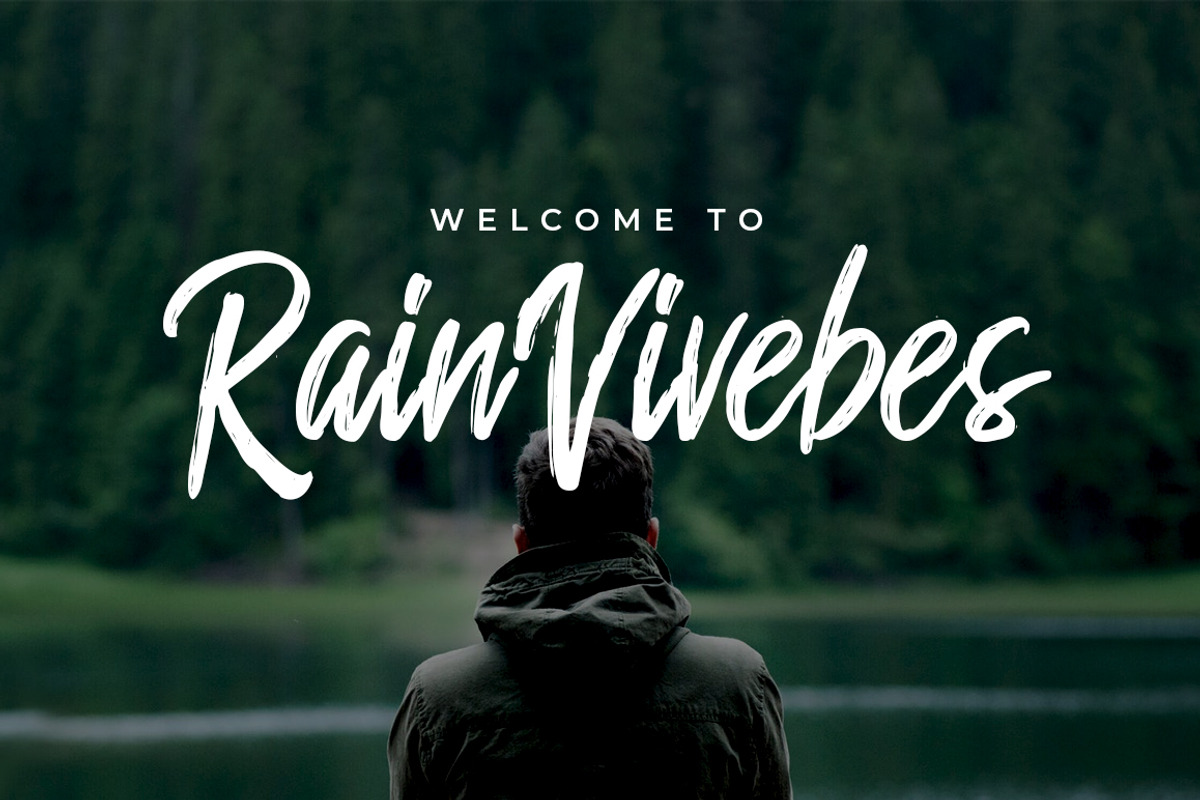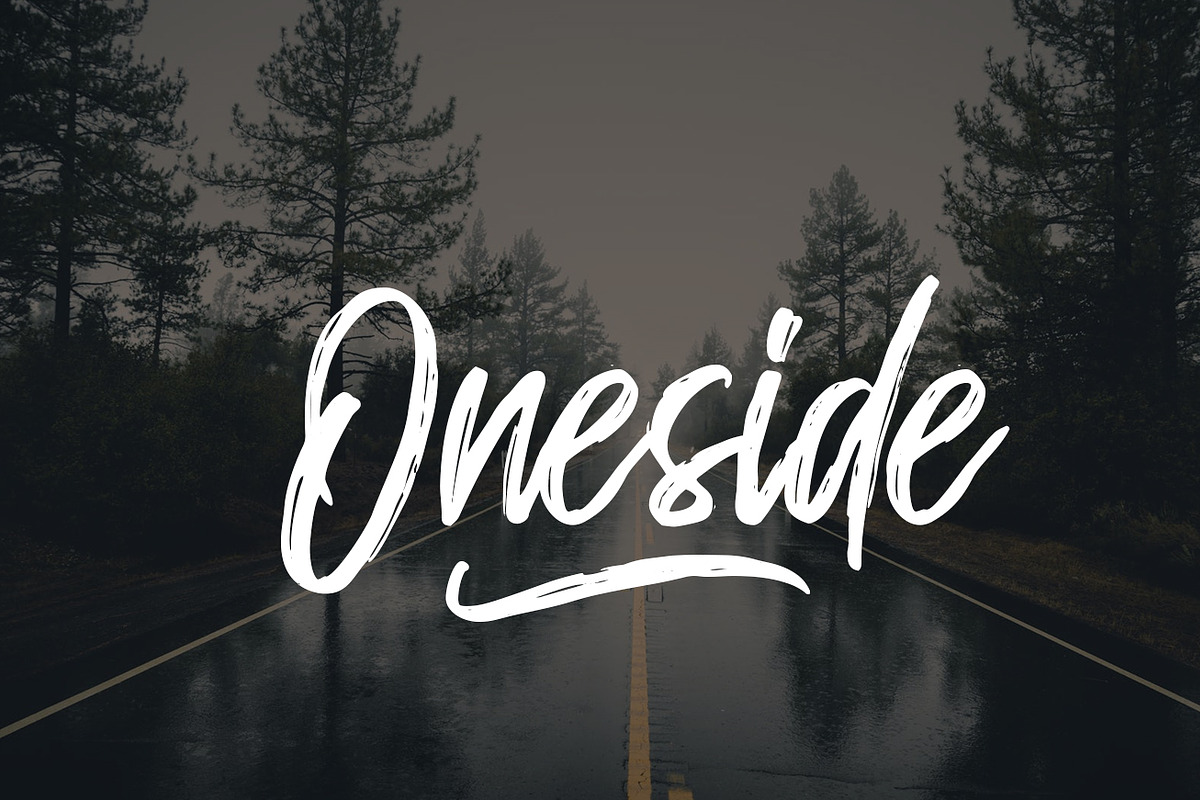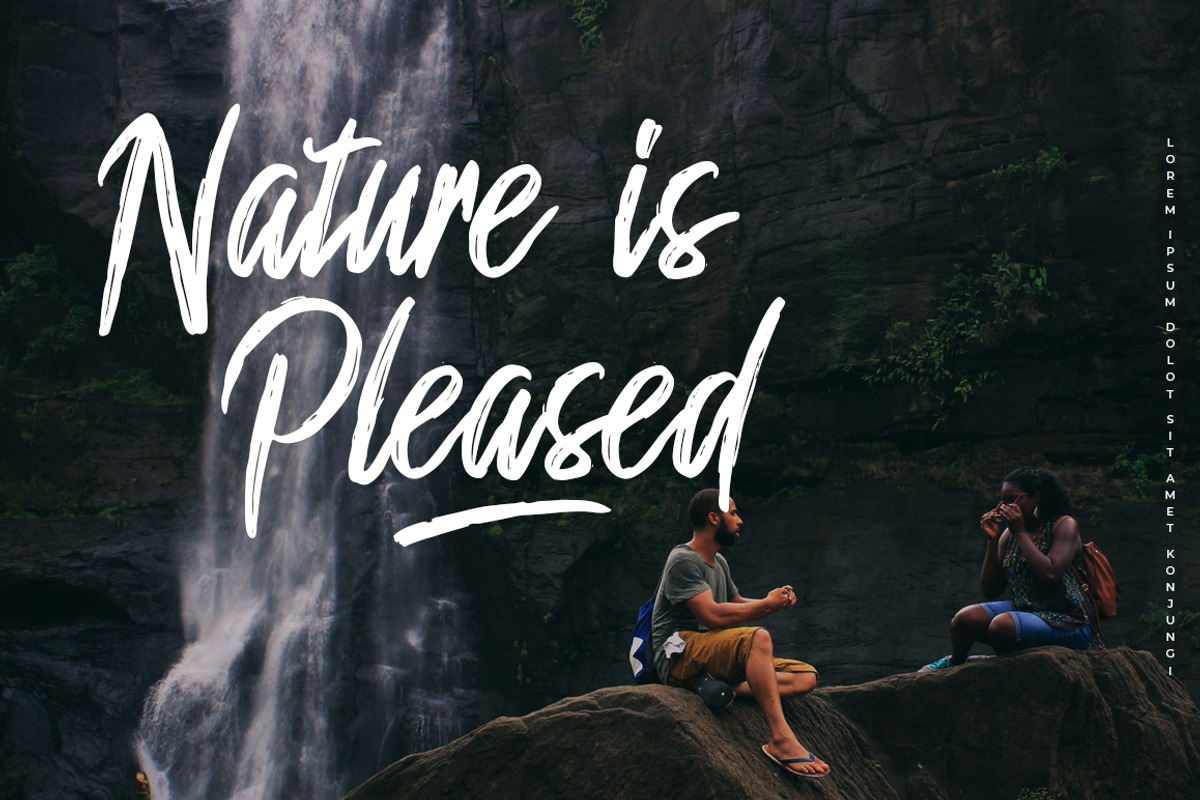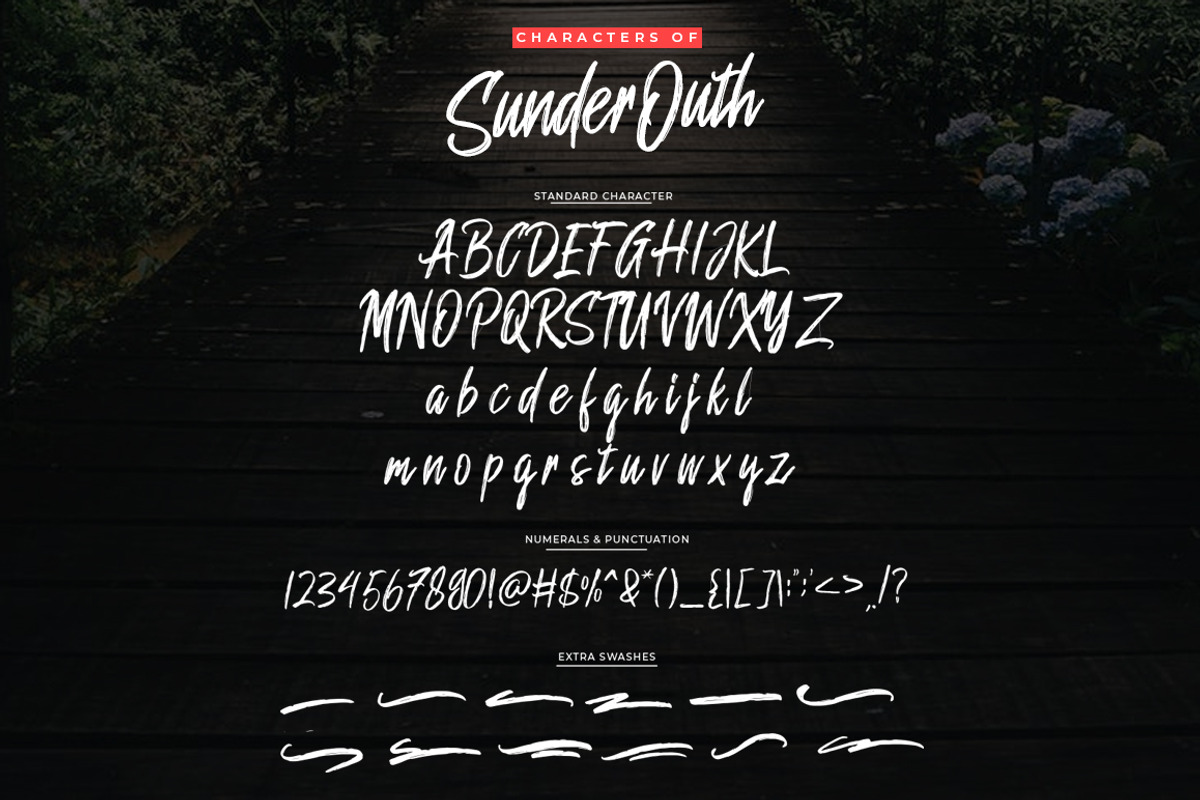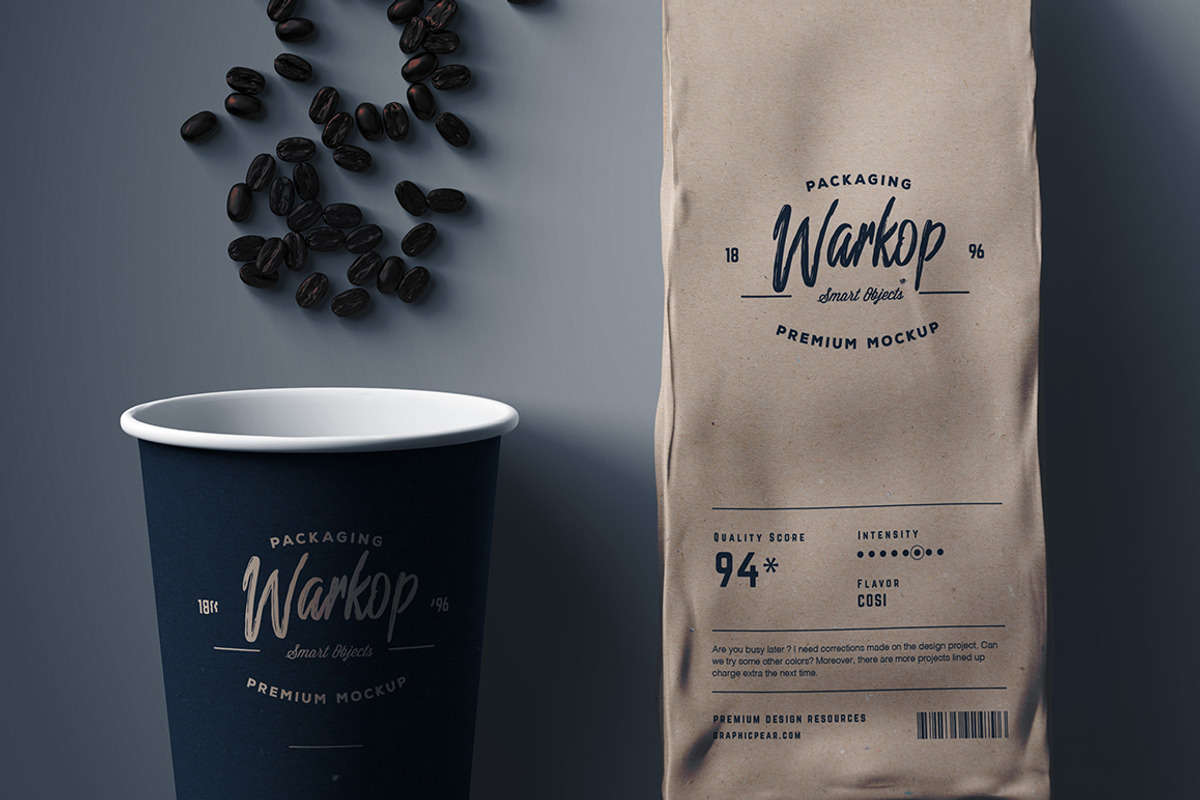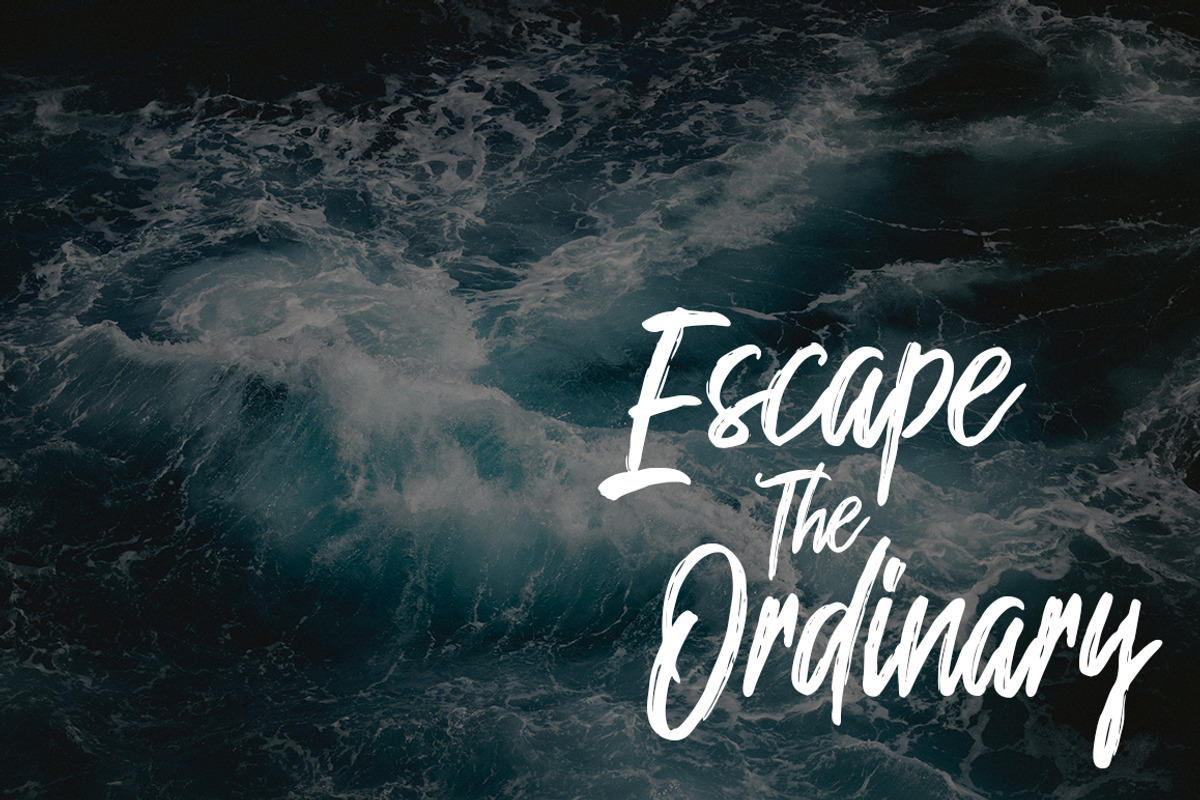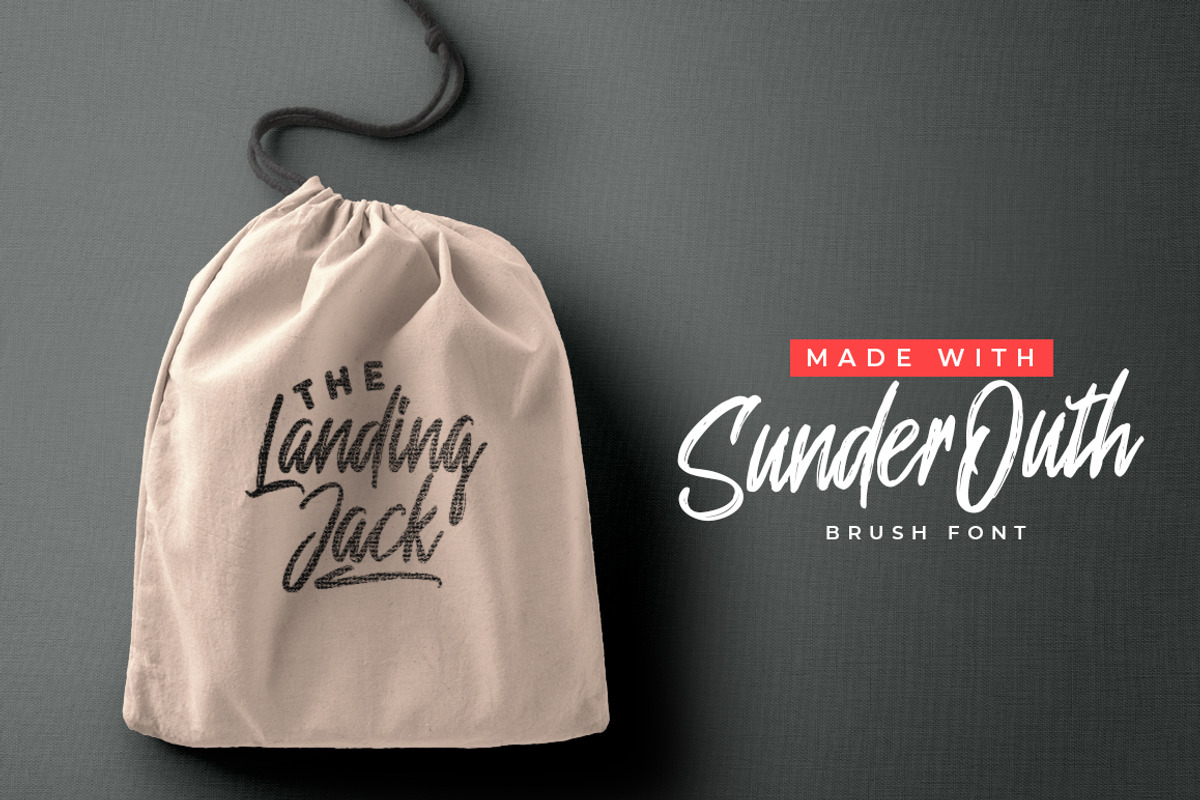
Sunder Outh Brush Font
In this time many people like hand lettering and calligraphy but they can't do it, with this font you can make it easily and quickly.
Now let us introduce you our new font called "Sunder Outh Brush Font"
Sunder Outh is a rough brush script font with a clear style and good flow This font is great for your next creative project such as Logotype, printed quotes, invitations, cards, product packaging, headers, Letterhead, Poster, Apparel Design, Label, and etc.
Why Sunder Outh Brush Font is worth a look
Sunder Outh Brush Font by Indotitas fits naturally into Branding, posters, packaging, typography.